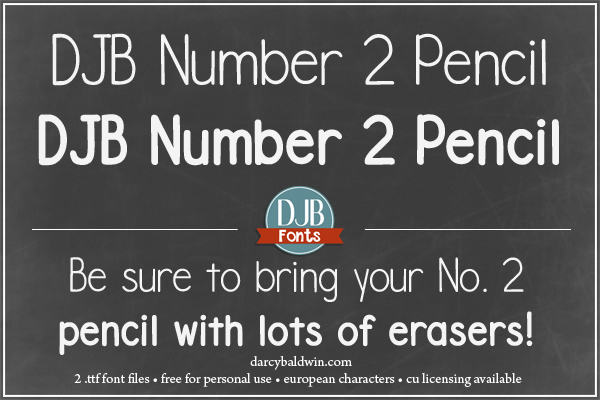
An easy to read back to school font in 2 styles - regular and bold. Contains European language characters. This font is free for personal use only. Please purchase a commercial use license at: http://darcybaldwin.com/commercial-use/ https://www.facebook.com/DarcyBaldwinFontography |